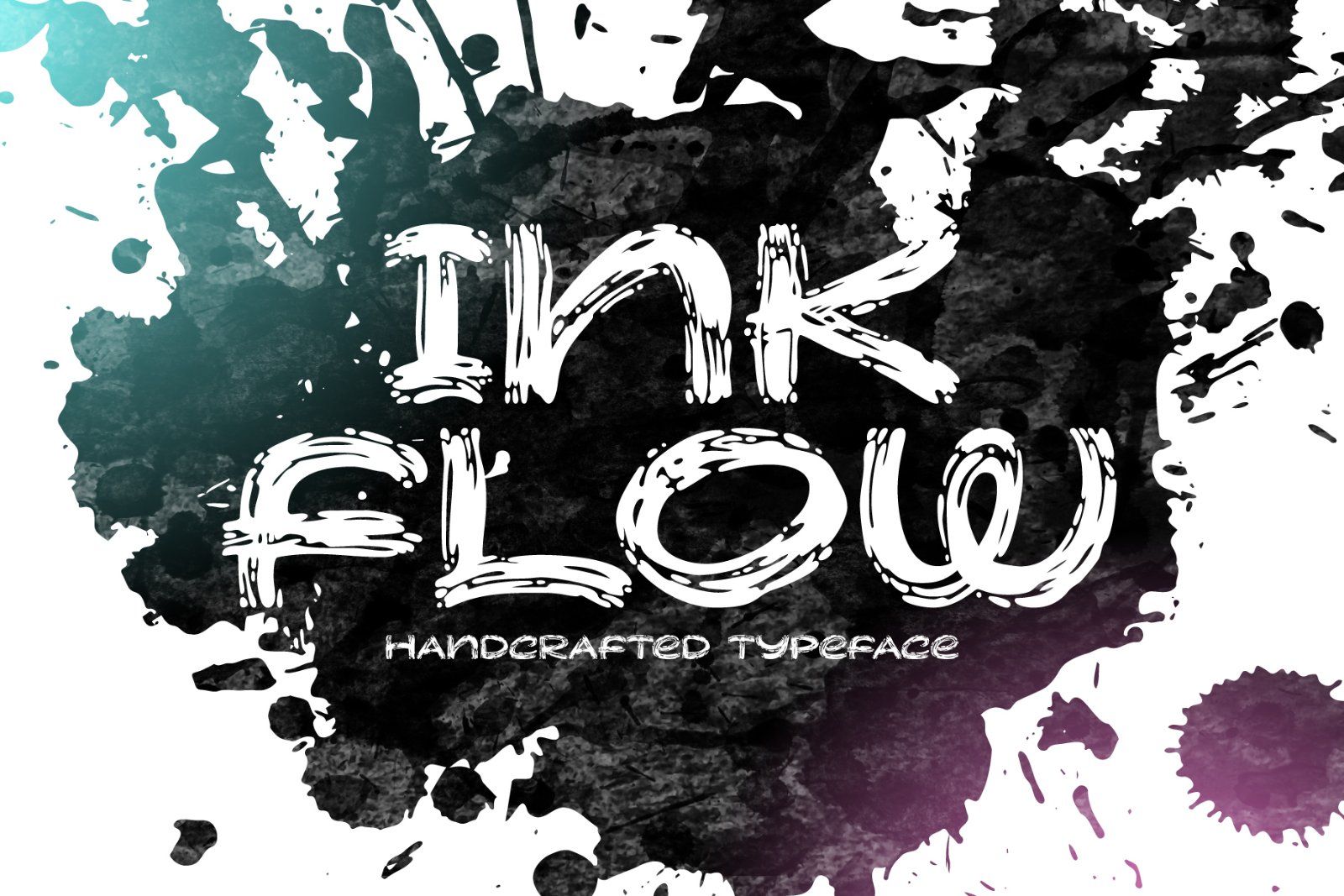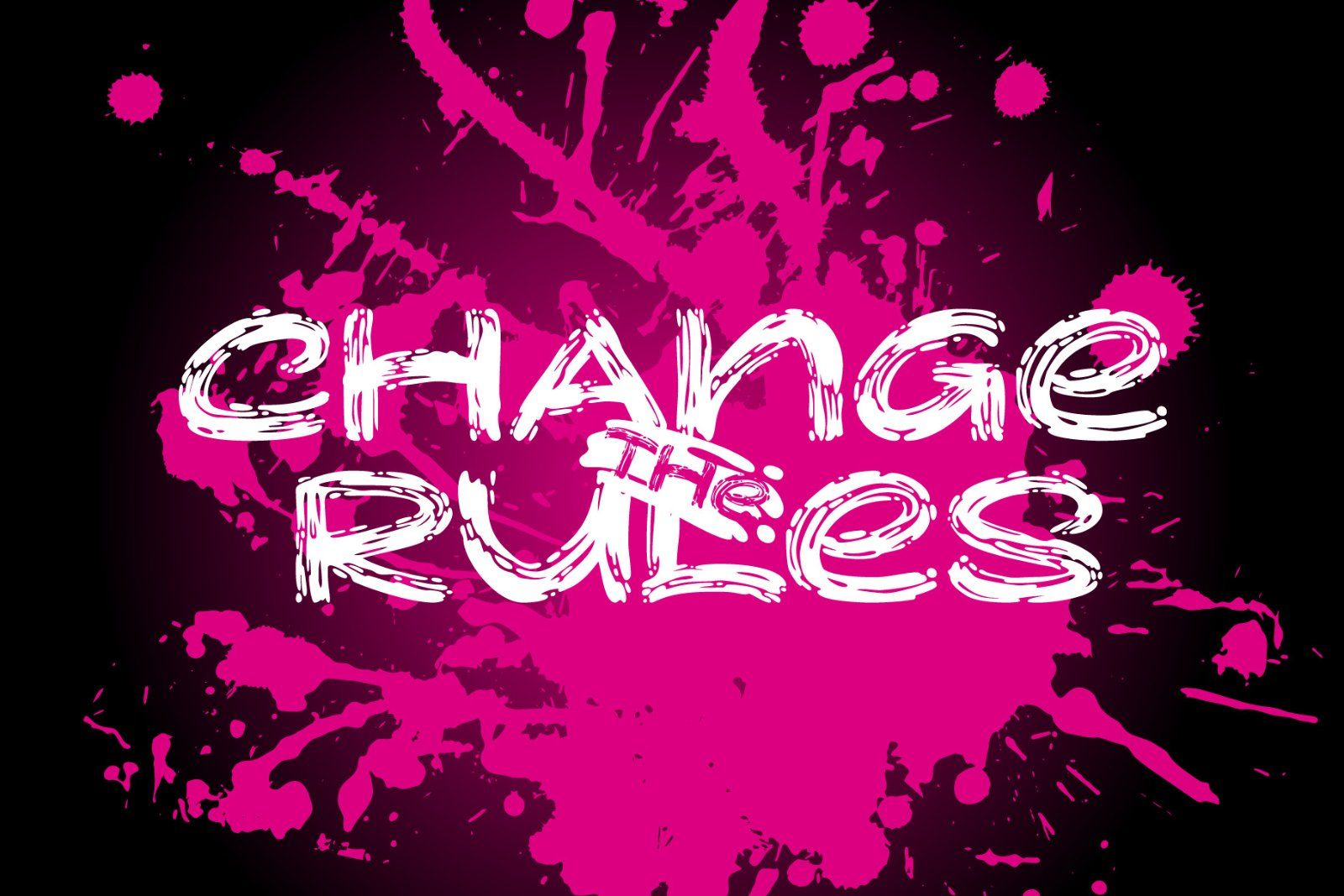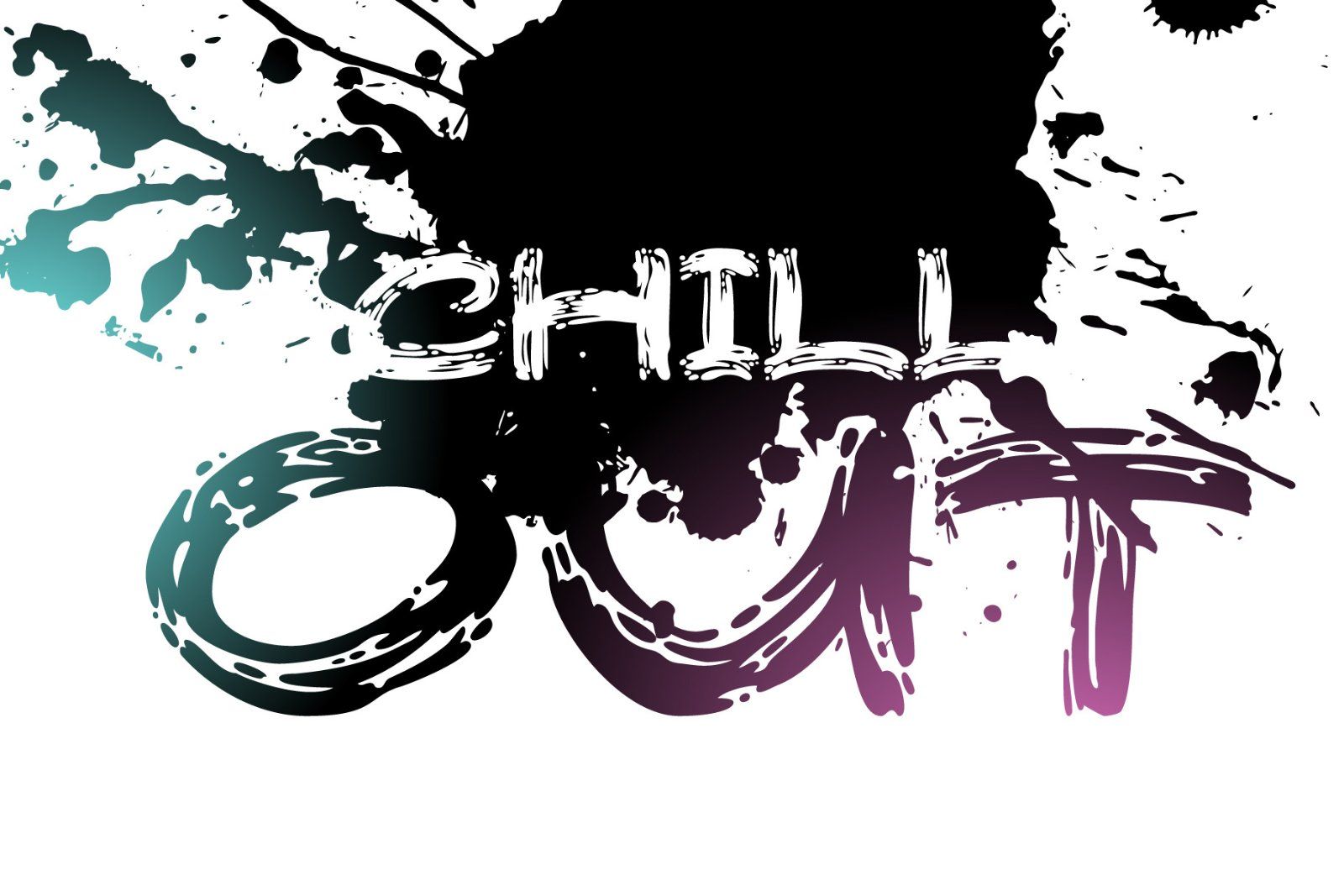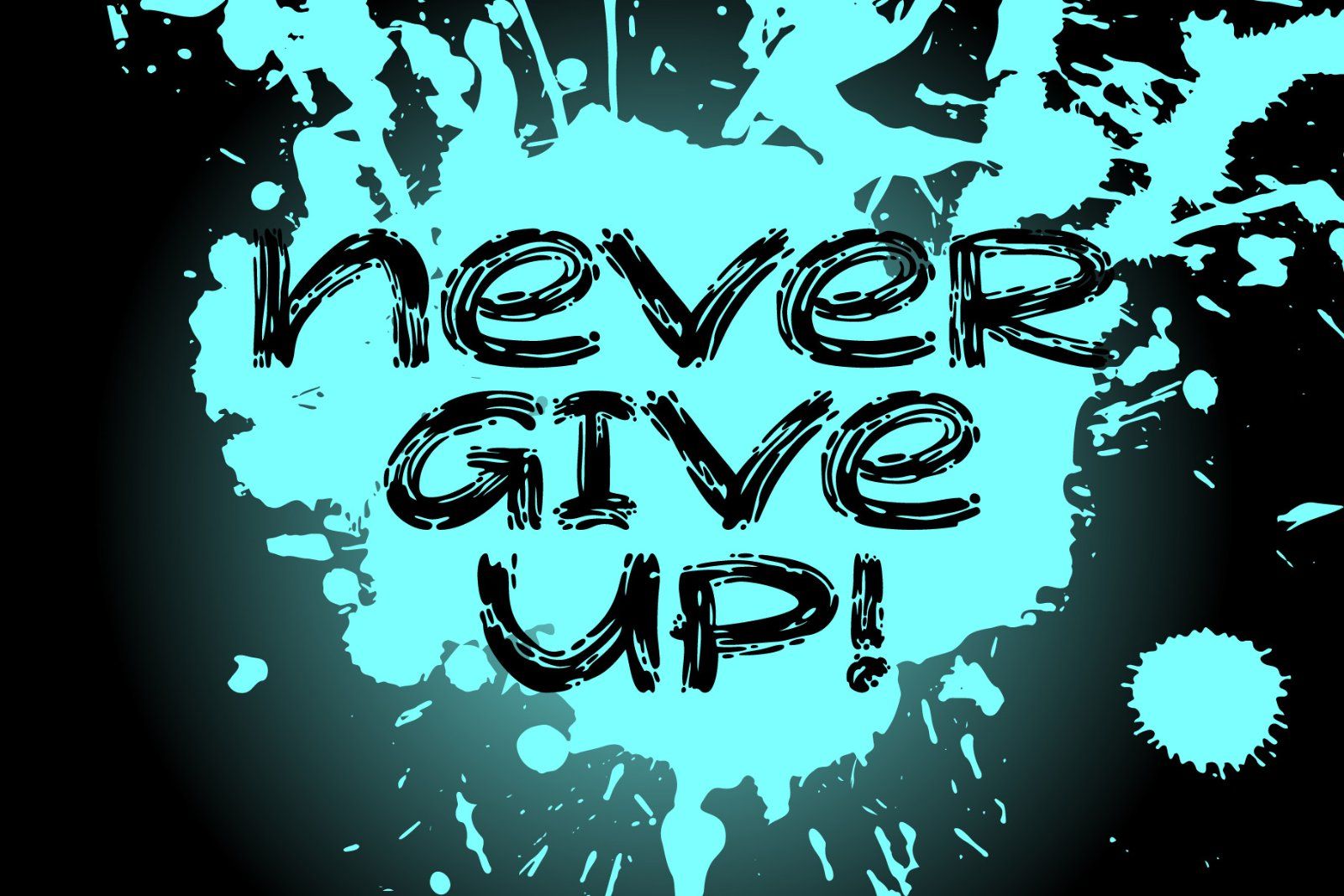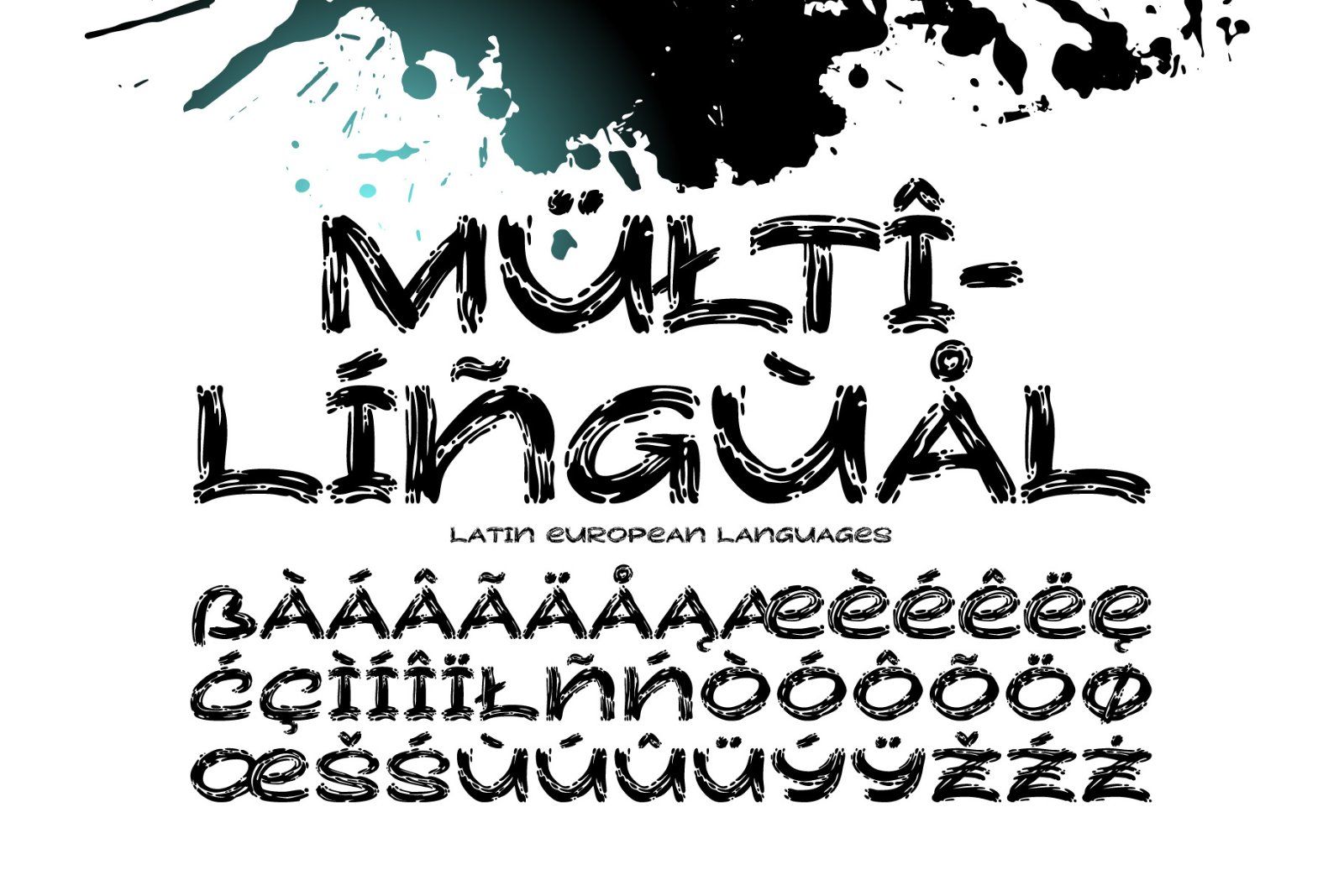
MarketplaceFontsInk Flow handcrafted brush font
Hi, presenting a graffiti style font - Ink Flow. It's a handcrafted all caps font with unique brush stroke shape. This font supports most of the European languages, please check out the screenshot with all available characters.